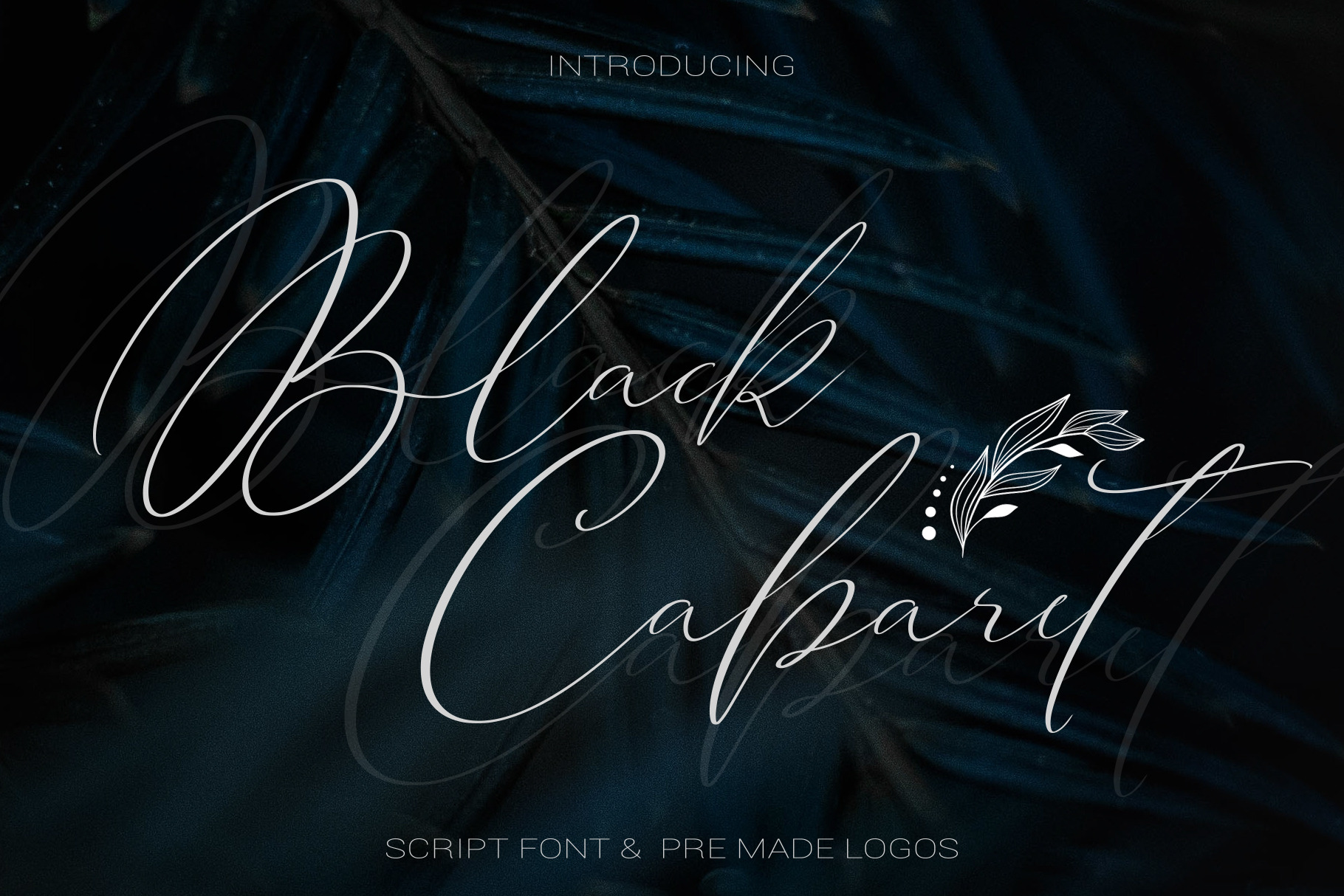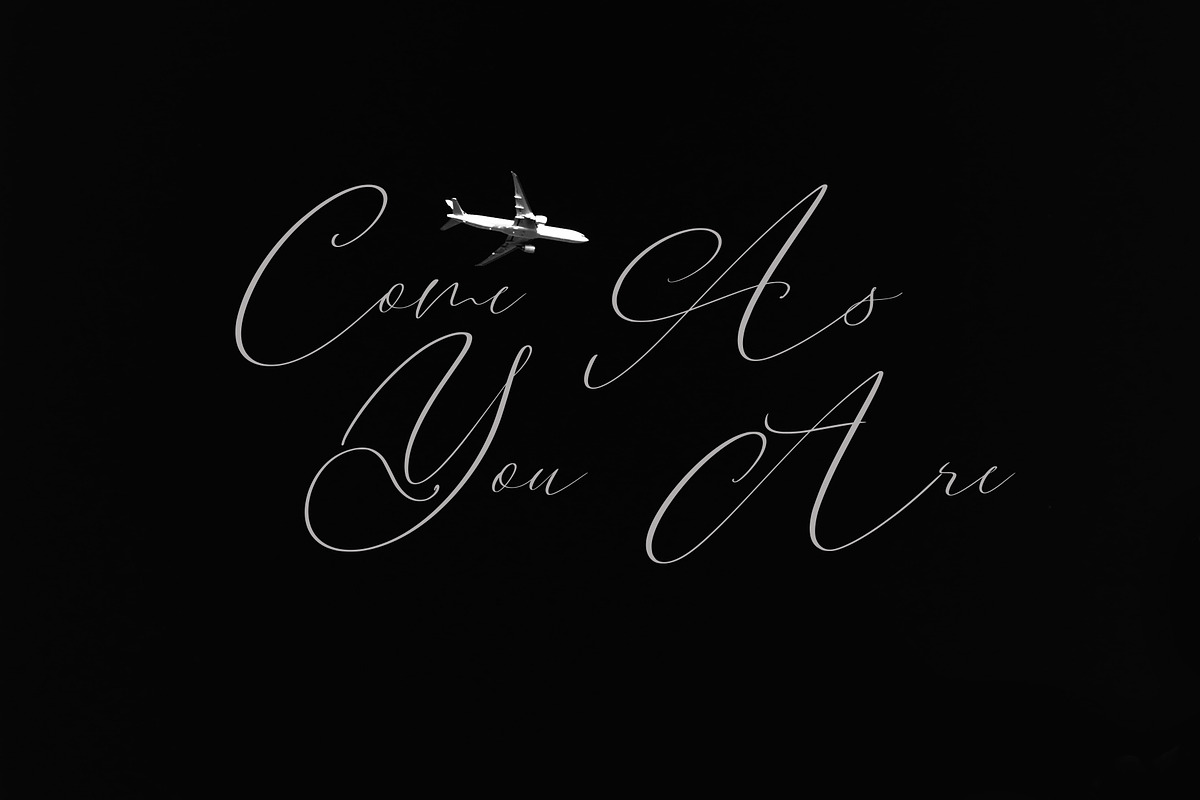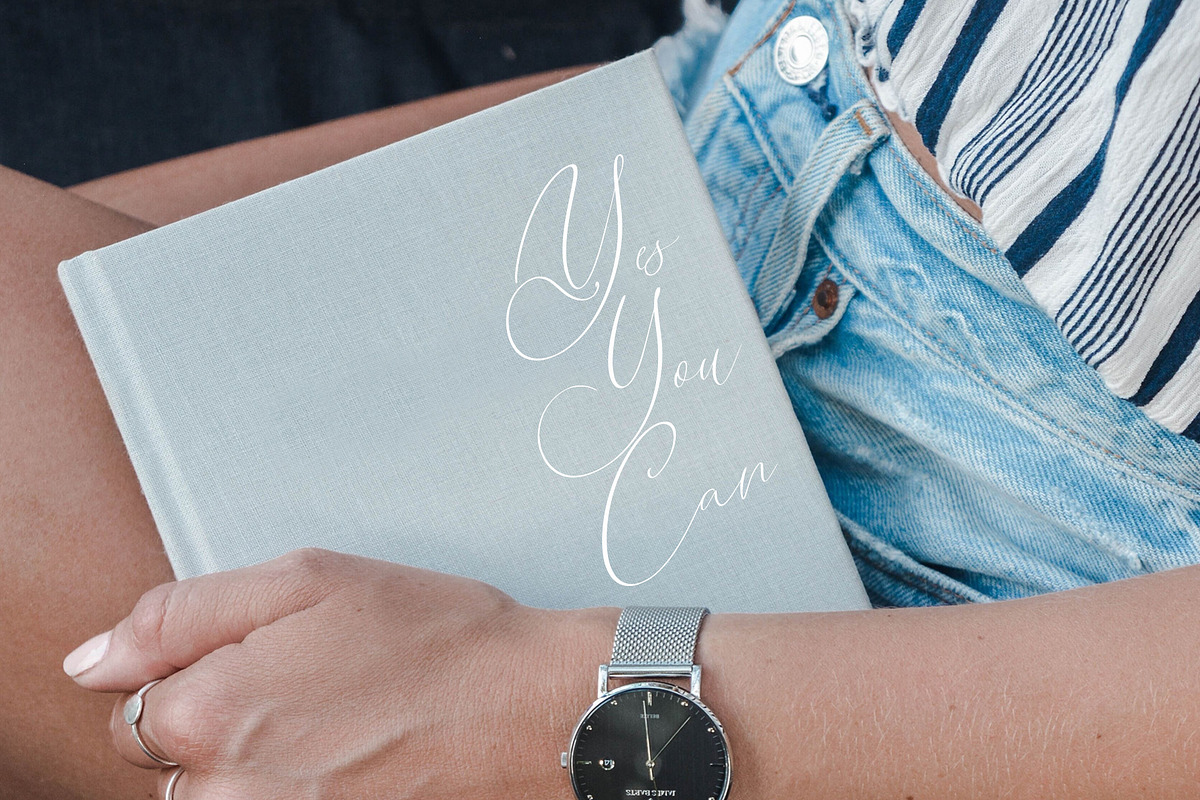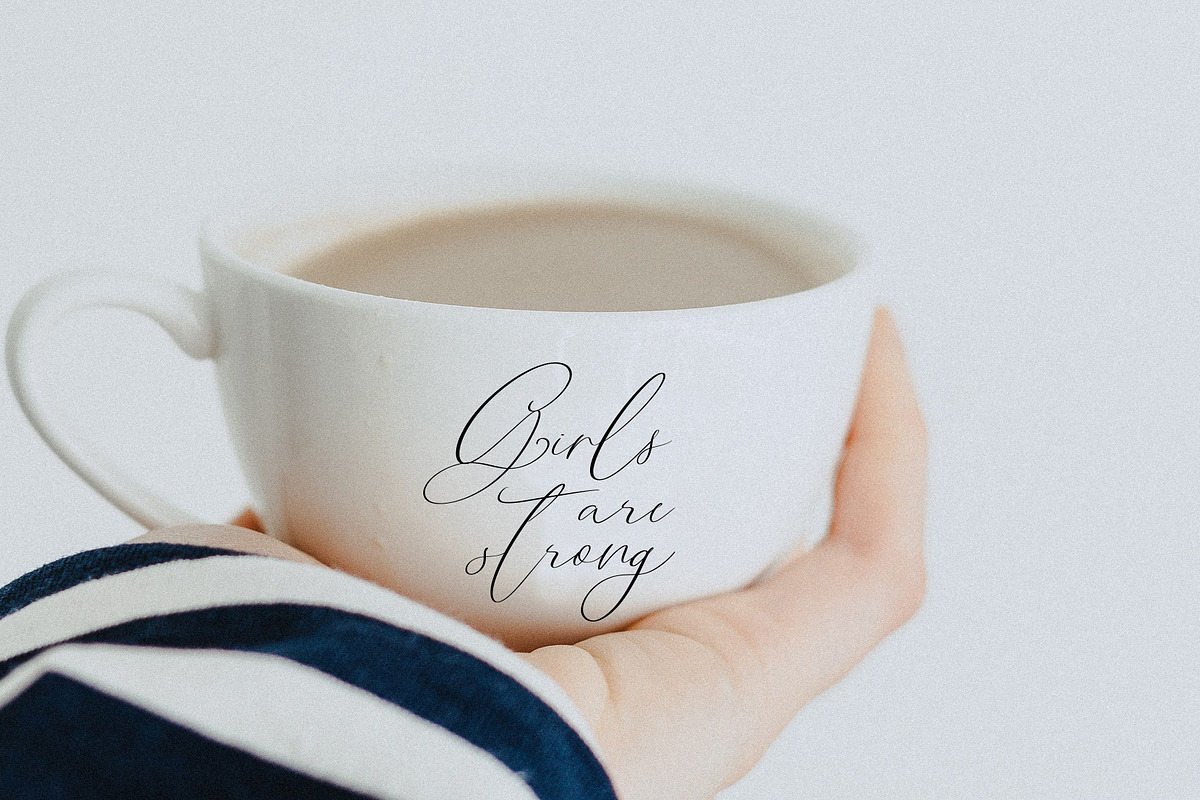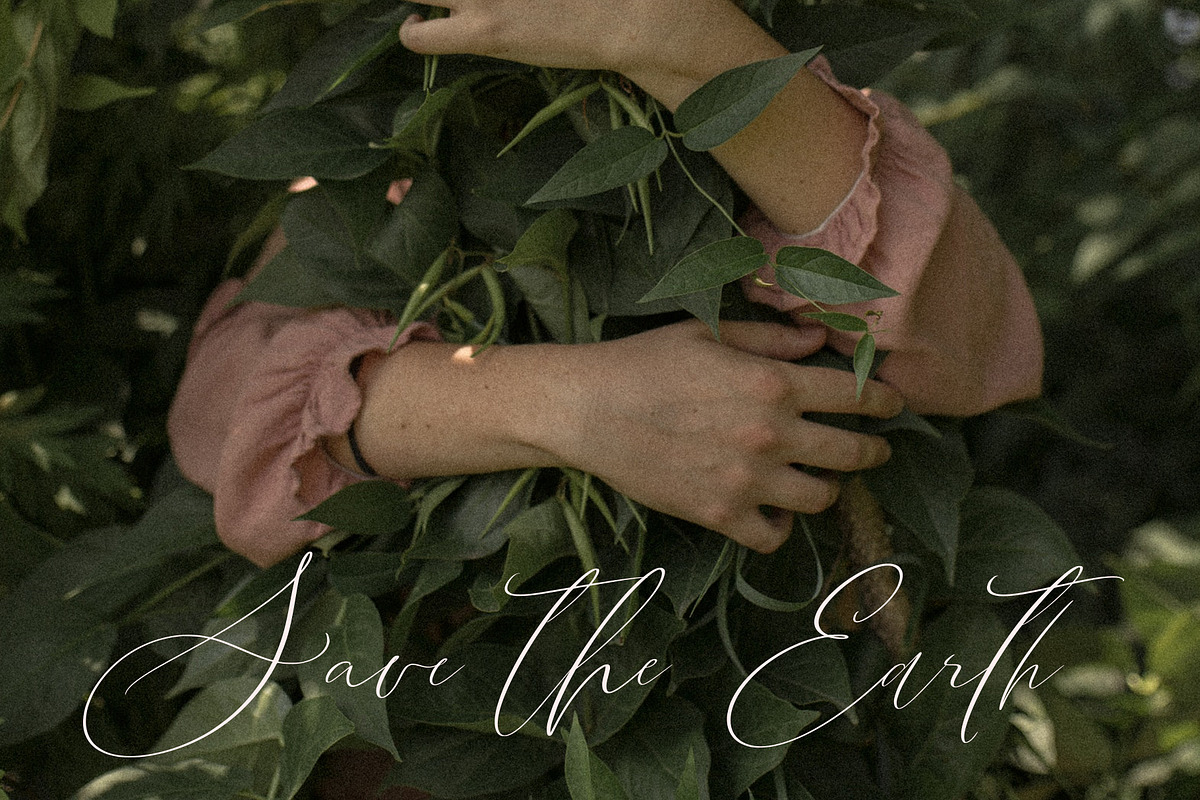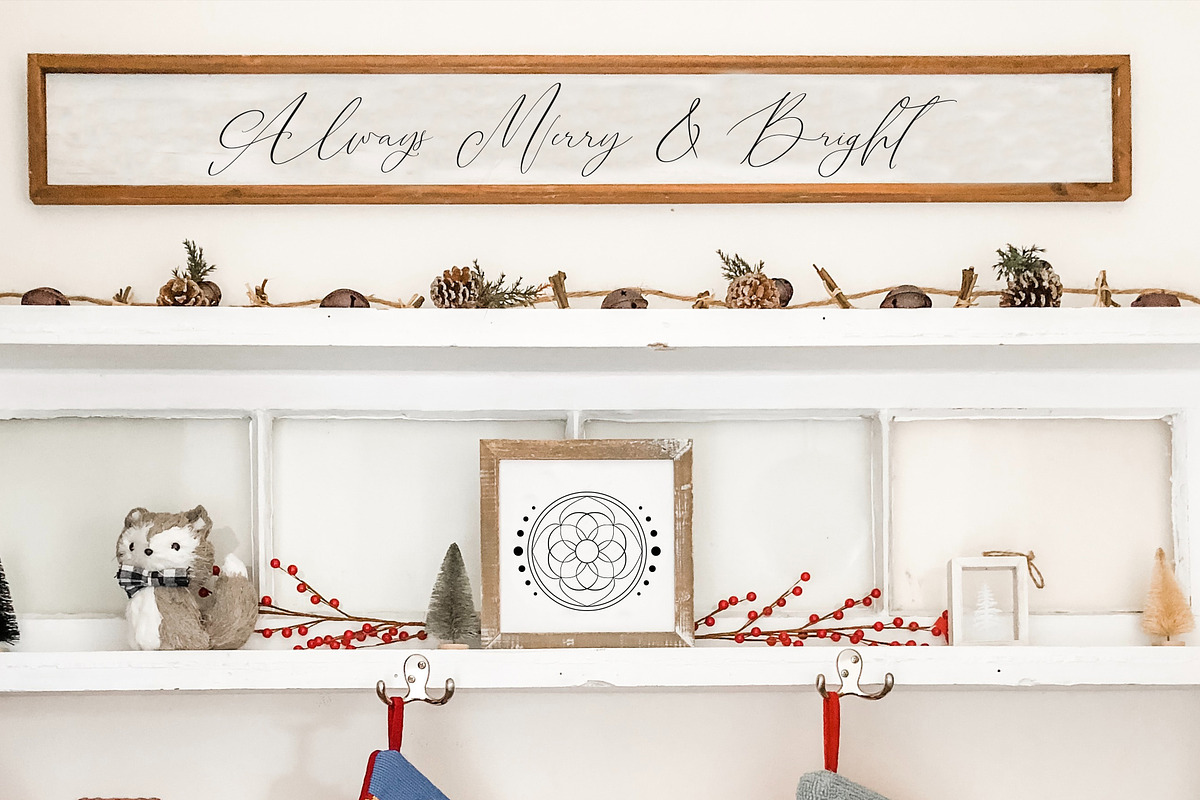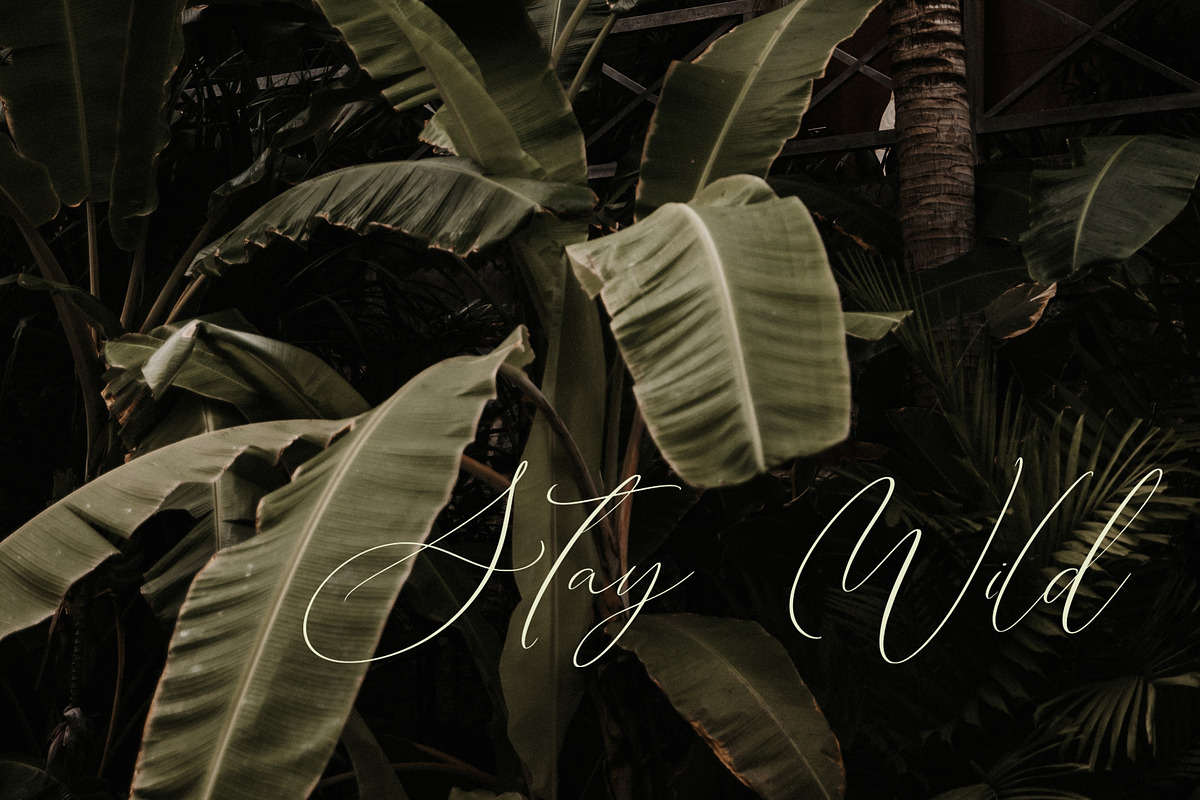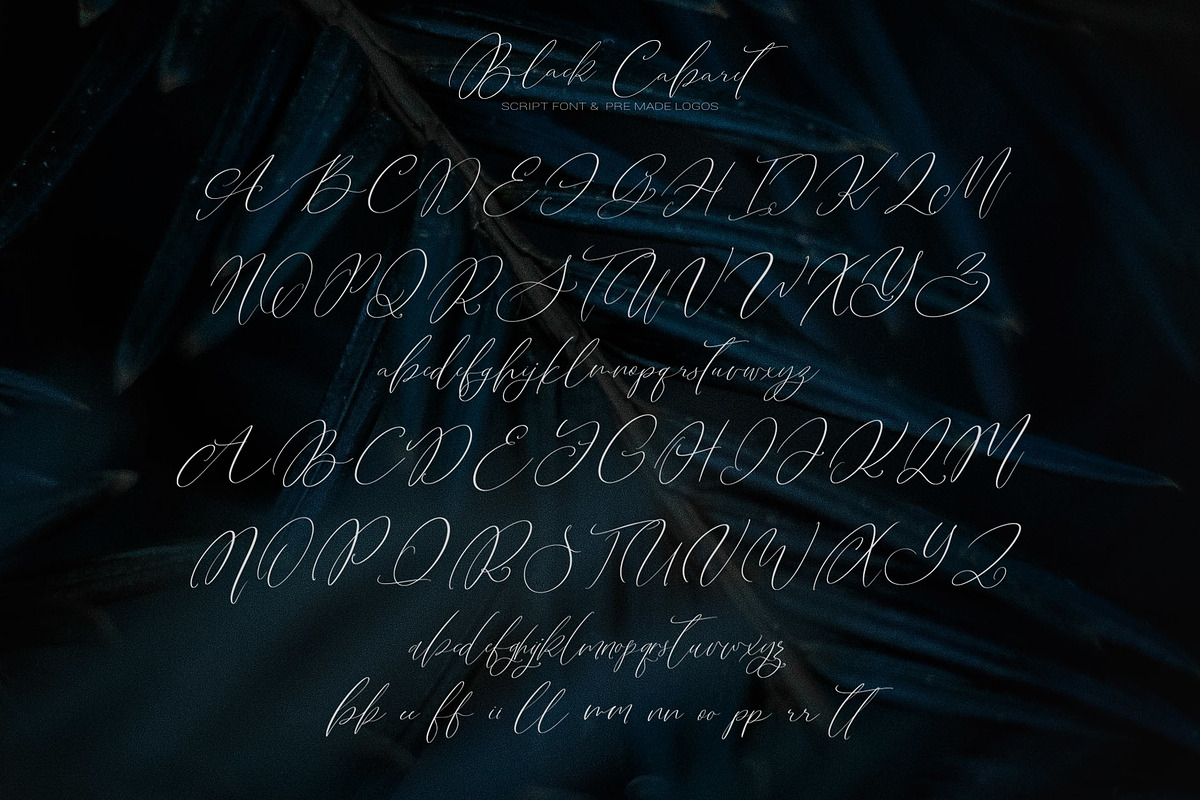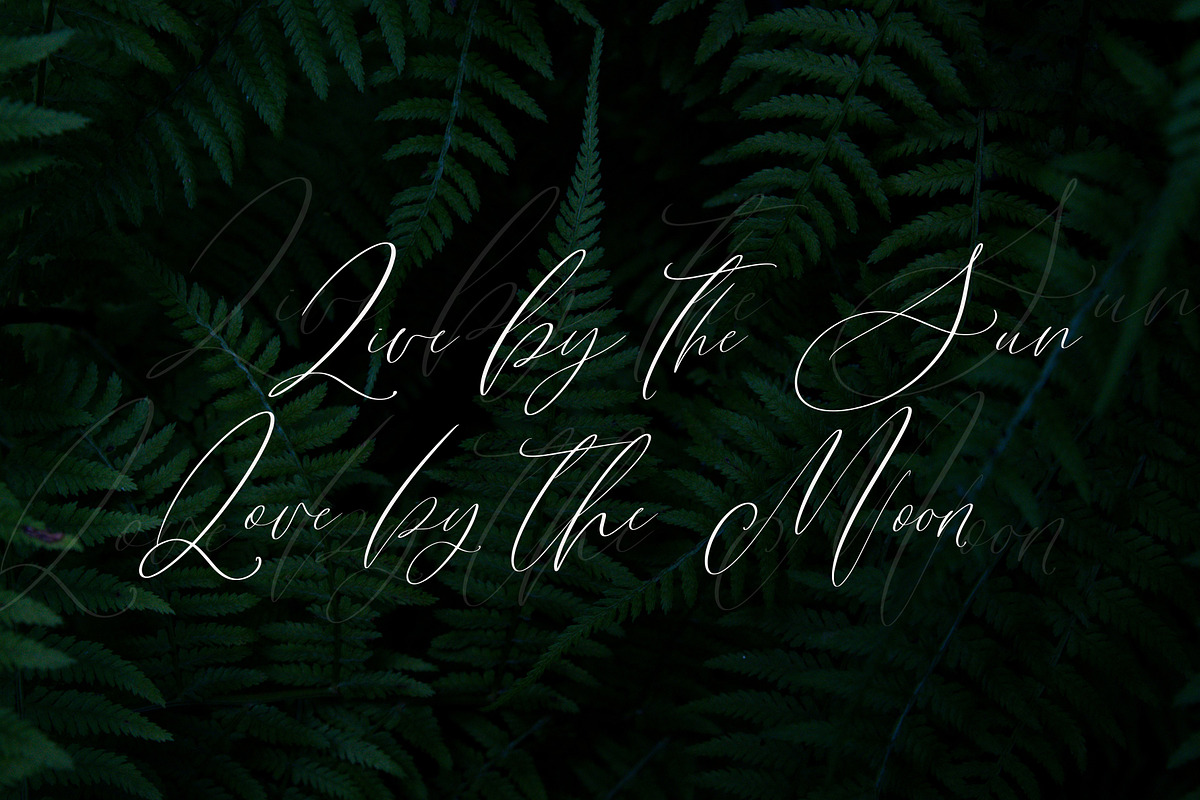
Black Cabaret Script Font & Logos
Black Cabaret Script Font & Logos - elegant modern calligraphy script font with alternates and logo elements
Black Cabaret Script Font & Logos.otf - standart and alternate uppercase, lowercase, numbers, punctuation and ligatures